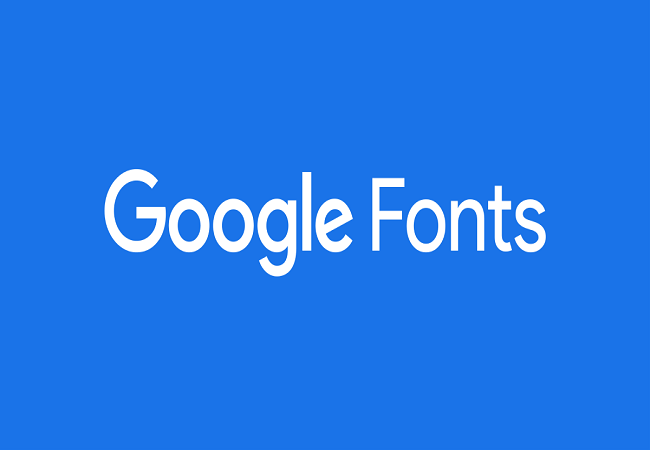
Nowadays, we all are living in that modern world of designing where the designs are now created with more attractive color schemes, design principles and excellent typography. And in the entire process of designing, Google Fonts plays a crucial role.. Whether you are designing an advertisement banner, product cover,, office document, or any website design, beautiful typography can turn anything into a more impressive and eye-catching design. Google Fonts is an excellent service that is hosted by Google.
If you are new in the field of designing and want to know more about using Google Fonts, then here, you will get to know everything. Today, in our following article, we are going to tell you everything about the Google Fonts along with the ways to use it in your design. We will also suggest the best Google Fonts that you can use in your design to make it more beautiful and attractive. Please read the full article to get a complete idea regarding the topic.
What is Google Fonts?
Google Fonts is an impressive collection of interactive programming interfaces that enables its users to use a variety of web fonts on their websites. These are the specialized fonts that are not available on any visitor’s device. Most web font families included in the Google Fonts are much popular among website developers. Google Fonts is one of the most popular websites on which you can find a wide variety of free and open-source web fonts to use on your designs. It provides you with more than 900 beautiful web fonts that support more than 100 different languages, and you can use these fonts in your webpages, and these web fonts can be downloaded with much ease with just a single click. However, these fonts are created specifically for the web designers or front end web developers, but they can be easily used for any other purposes as well. You can even Google Fonts on your computer. The interface of the Google Fonts is a bit overwhelming for the users who are not experts in choosing fonts.
Are you also planning to use the Google web fonts for your website? Want to know how you can use them? Need some suggestions for the best fonts? Here you can get all the answers to your questions. Mentioned below are the steps that you need to follow to use Google Fonts along with the suggestions for the best of them that you can use. Have a look below:
The Best Google Fonts to Use
All the fonts are pretty good to use. But, here, I have mentioned the best Google Fonts that you can use on a regular basis.
Ubuntu
The Ubuntu font comes with an extraordinary look and design. This is a new default font associated with Ubuntu OS.
Roboto
Roboto is one of the most popular and best web fonts that you can use on your websites. It has a unique look and design that will make your site more attractive.
Lato
Lato is another best web font that is widely used by a lot of web designers and developers. You can use this font for the body text of your webpages.
Oxygen
It is a sans- serif font that includes a set of unique characters. It is a better option to choose for making titles and headings.
Merriweather
Merriweather is another elegant font that comes in the list of popular and commonly used web fonts. This is a perfect option for headings and body text, especially in the case of designing professional and business websites.